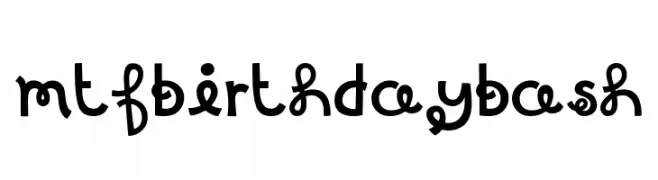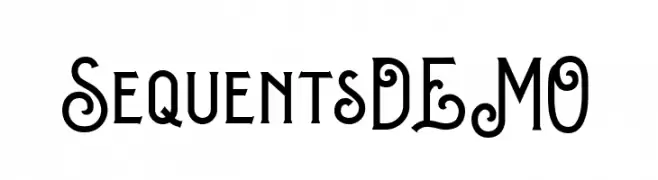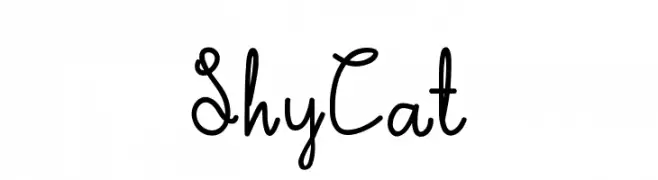
A playful, curly font with bold, smooth strokes and a whimsical style.
A playful, curly font with rounded edges and whimsical character.
A playful and whimsical font with curly, looping strokes and elegant flourishes.
A whimsical, hand-drawn font with curly, uneven strokes and a playful aesthetic.
A whimsical and decorative font with curly embellishments and playful style.
A decorative font with curly serifs and playful swirls, offering a unique blend of elegance and creativity.
A whimsical, playful script font with curly, hand-drawn letterforms.
A playful and whimsical font with rounded, curly elements and consistent stroke width.
A whimsical and playful font with curly, looping strokes and decorative flair.
A playful, curly handwritten font with a whimsical flair.